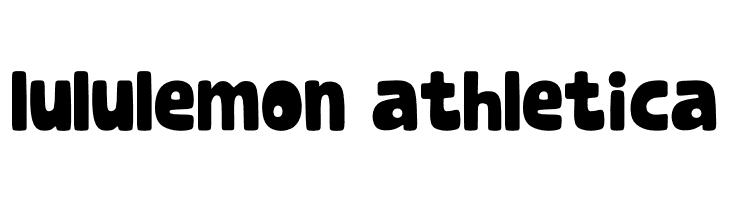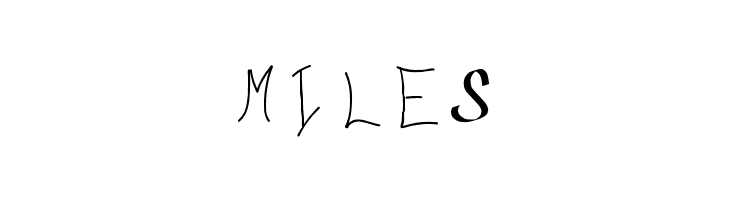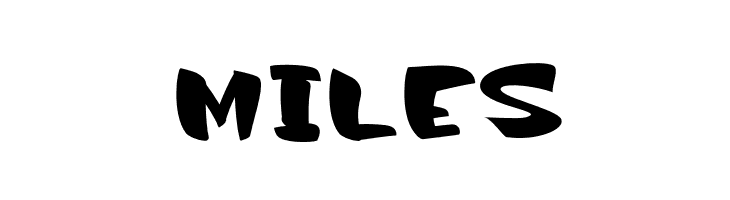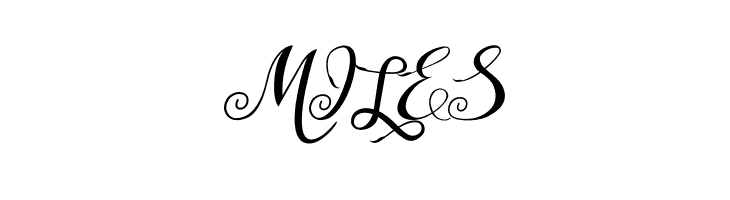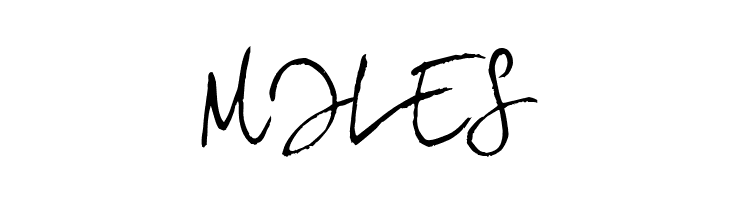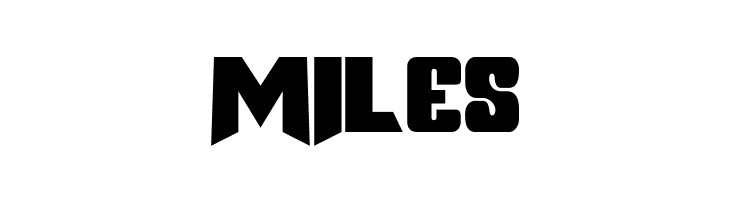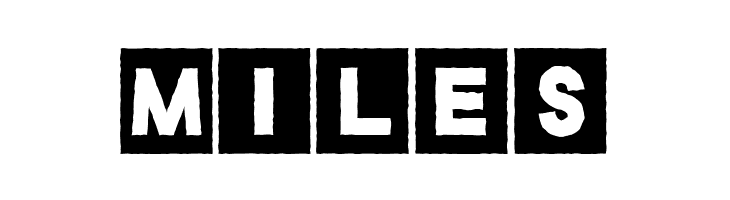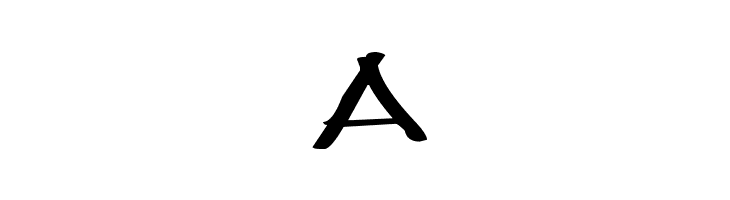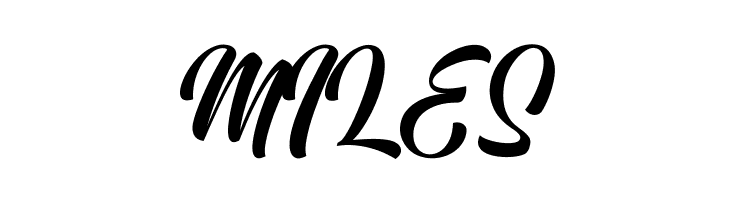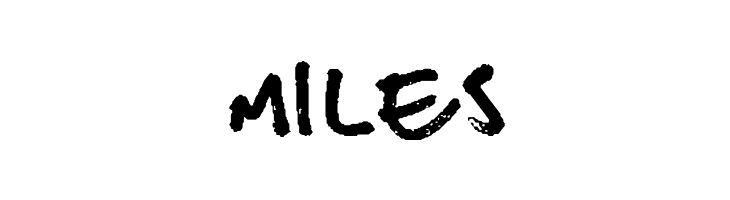
An elegant and flowing script font with graceful curves and cursive lines.
A flowing, cursive script font with elegant loops and varying stroke widths.
A modern, elegant script font with a flowing, cursive style.
An artistic and elegant font with intricate curves and sharp edges, perfect for creative projects.
A bold, playful font with rounded edges and a retro-modern style.
A bold, rounded font with a strong, impactful design.
A bold, rounded font with a playful, bubble-like design.
A bold, playful font with a thick outline and bubble-like appearance.
A bold, geometric font with sharp angles and a futuristic style.
A geometric, block-like font with a modern and structured appearance.
A playful, handwritten font with bold, rounded strokes and a casual, friendly appearance.
A bold, playful font with rounded, whimsical characters.
A playful, bold font with rounded, hand-drawn characters.
A playful, bold font with rounded edges and a whimsical style.
A dynamic, expressive handwritten font with energetic strokes and fluid motion.
A playful, handwritten font with dynamic and flowing letterforms.
Elegant cursive script with a handwritten style.
A bold, modern font with thick strokes and geometric style.
A bold, italic font with high contrast and dynamic style.
A bold serif typeface with strong, angular serifs and a commanding presence.
A bold, italic serif font with strong, dynamic strokes and sharp serifs.
A classic serif font with elegant strokes and a refined appearance.
A light, italic font with a sophisticated and elegant design.
A bold serif font with high contrast and elegant, sharp serifs.
A medium weight, italic font with a modern and elegant style.
A refined, thin serif font with high contrast and elegant design.
A thin, italicized font with a modern and elegant style.
A playful, informal handwritten font with a lively and dynamic style.
A playful, handwritten font with fluid, organic strokes and a casual feel.